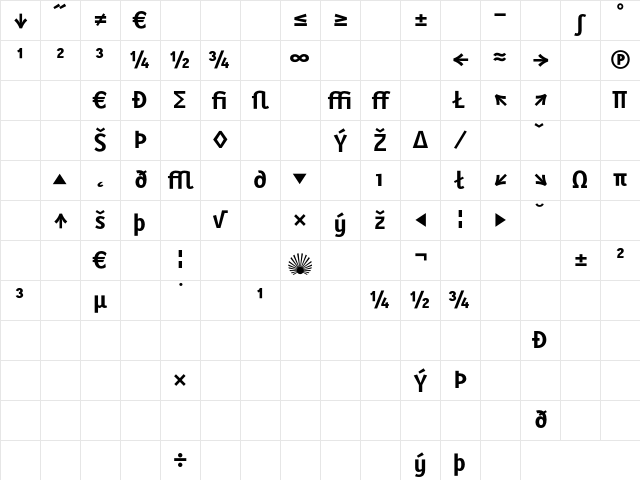
Complete Karbid BoldExpert glyph index. Displaying only characters natively supported by Karbid BoldExpert font.
Karbid is a composed and adaptable typeface that performs quietly and consistently across a wide range of design contexts. Its bold stroke weight gives it real presence on the page.